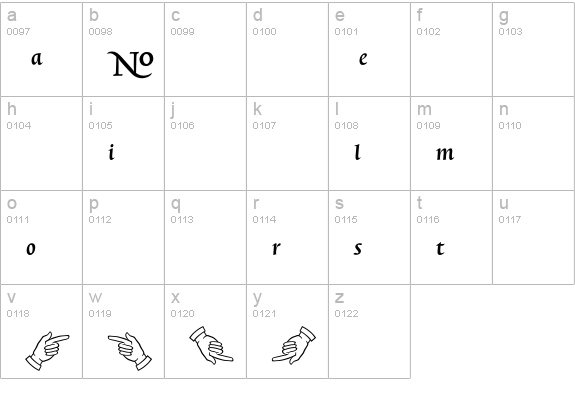
TriniteNo3-MediumItalicPi font is a stunning display of elegance and sophistication. Its medium weight and italicized design give it a distinct touch of class, making it perfect for projects that require a touch of elegance. The font exudes a sense of professionalism while still maintaining a playful and creative edge. TriniteNo3-MediumItalicPi font boasts well-defined and finely crafted letterforms, with smooth curves and sharp angles that create a harmonious balance. Its unique style adds a touch of modernity to any design, making it a versatile choice for a wide range of projects. One of the most appealing aspects of TriniteNo3-MediumItalicPi font is that it is freely available to download at FontsMarket.com. This means that designers, creatives, and enthusiasts can easily access and utilize this stunning font without any financial constraints. The availability of this font for free makes it even more accessible and allows for endless creative possibilities. Whether you are designing a logo, creating a poster, or working on a branding project, TriniteNo3-MediumItalicPi font will undoubtedly elevate your design and captivate your audience. Its versatility and unique style make it a standout choice for those looking to make a lasting impression. With its free availability and incredible design, TriniteNo3-MediumItalicPi font is a must-have for any designer's toolkit. Download it today at FontsMarket.com, and unlock a world of creative possibilities.